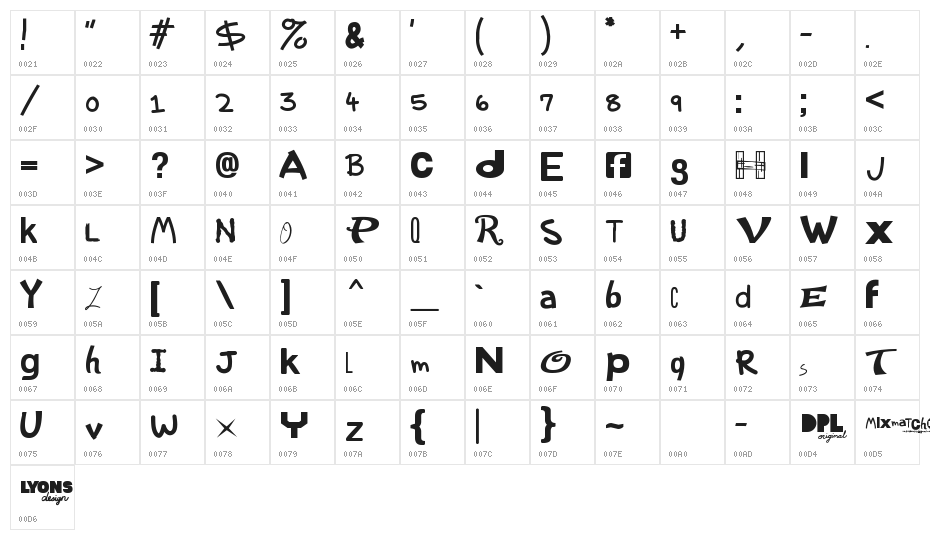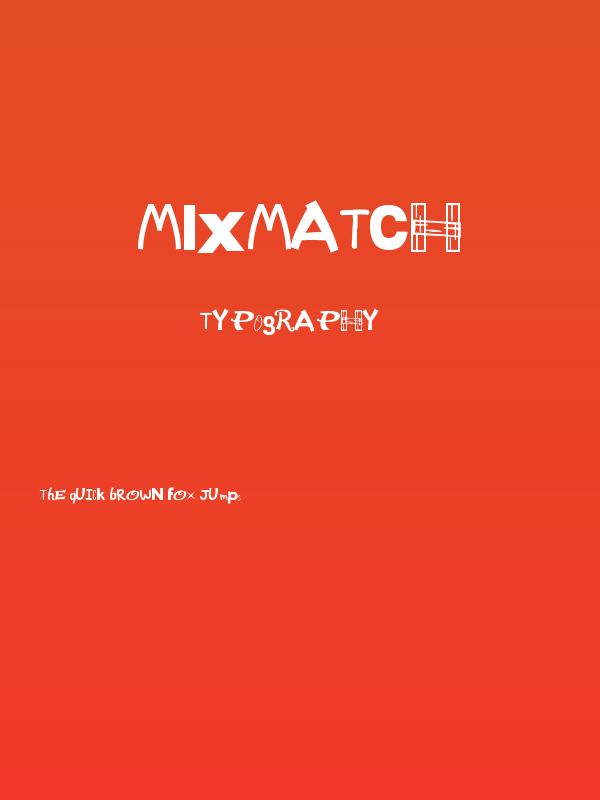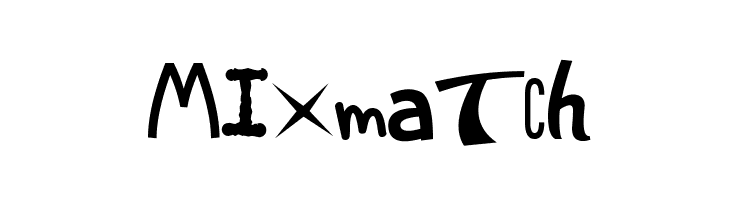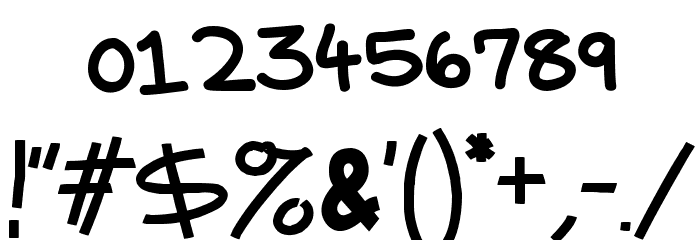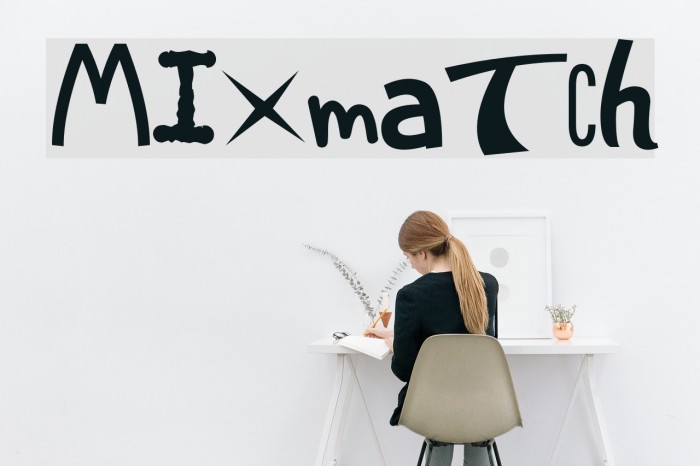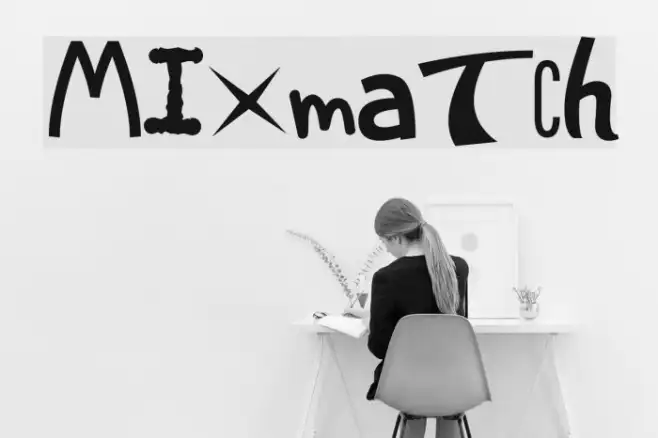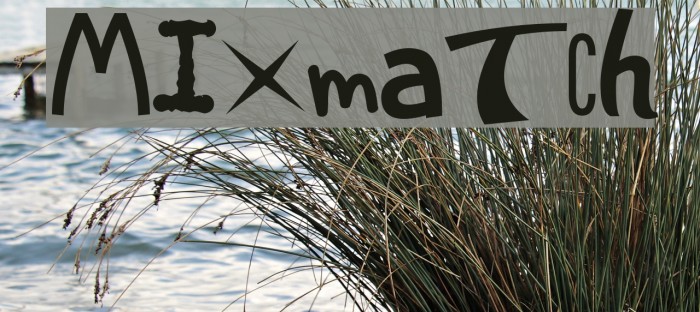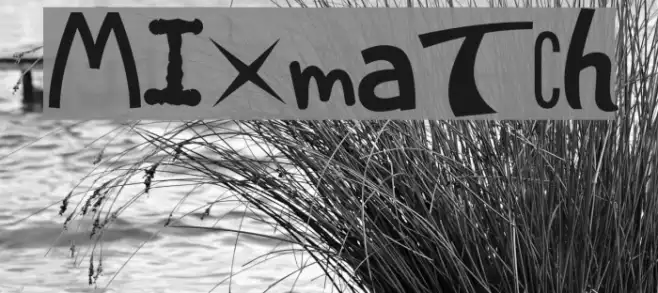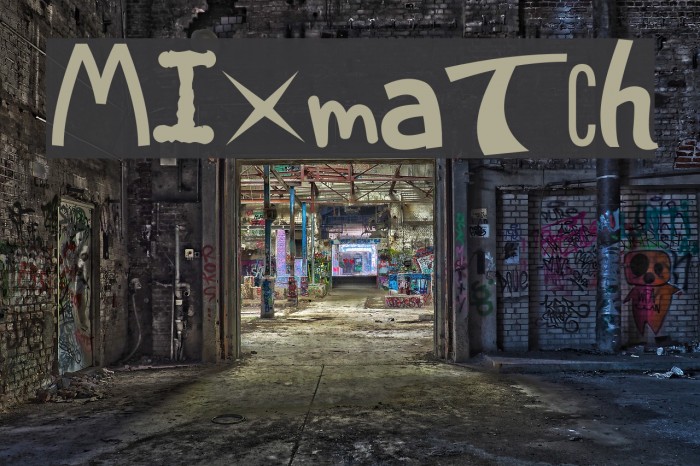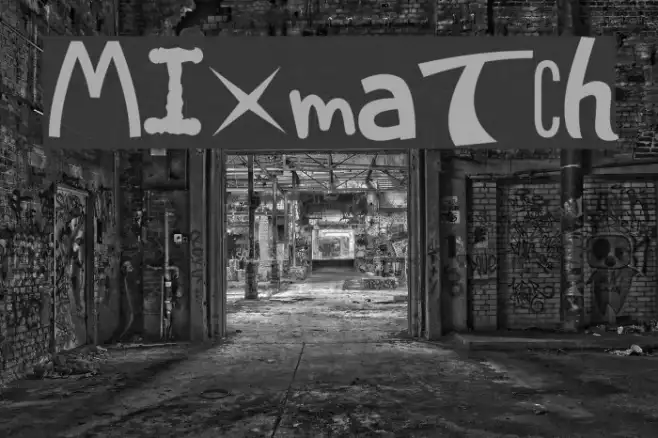
Mixmatch Font
Mixmatch Description
This font is a playful and eclectic mix of styles, combining elements from various typographic traditions. Each character has its own unique flair, with some letters featuring bold, thick strokes while others are more delicate and whimsical. The uppercase letters exhibit a wide range of designs, from geometric and blocky to curvy and ornate. The lowercase letters continue this theme, offering a diverse array of shapes and forms. Numbers and special characters are equally varied, adding to the font's overall quirky and artistic appeal. This font is perfect for projects that require a fun and unconventional look.
| Proposed Projects | Ideal for creative projects such as children's books, playful branding, artistic posters, and unique invitations. |